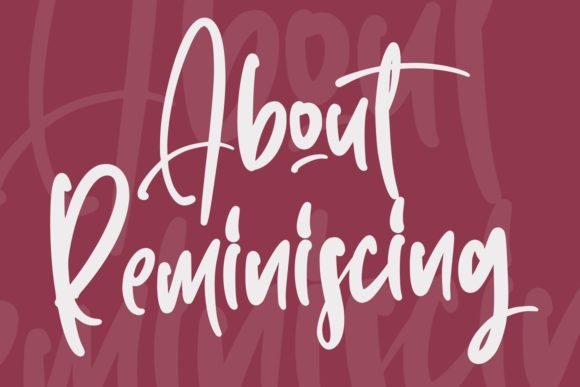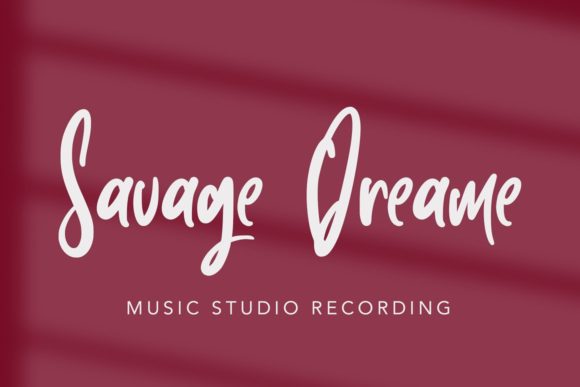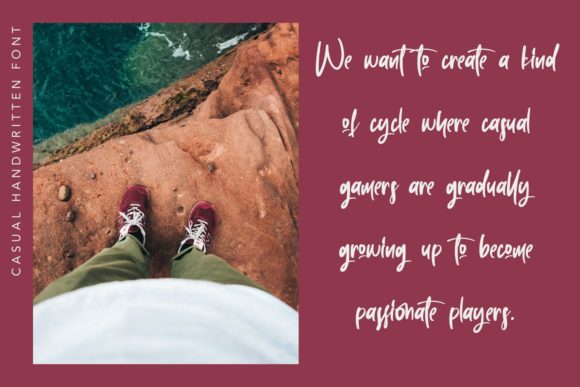
Introduction to Plottage Font
Have you ever stared at a blank canvas, struggling to bring your creative vision to life? You’ve spent hours brainstorming ideas, pouring over references, and agonizing over every detail. But then, like a ray of sunshine, the perfect font appears – and suddenly, your project comes alive. That’s exactly what happened when I discovered the Plottage Font.
With its bold, thick letters and smooth curves, the Plottage Font is the ultimate design resource for fashion branding and editorial designs. Its versatility and high quality make it an ideal addition to any creative project, whether you’re working on a magazine cover, a fashion campaign, or a personal branding project. And the best part? The Plottage Font is available for free download, complete with a transparent background, making it a valuable asset for designers looking to elevate their work.
Key Features of Plottage Font
- Includes 4 styles: Plottage Regular, Plottage Bold, Plottage Italic, and Plottage Bold Italic
- Designed to be highly versatile, suitable for a wide range of applications and designs
- Perfect for graphic designers, digital artists, and anyone in need of a unique and creative font
Honest Review: Plottage Font
I recently came across the Plottage Font and was excited to dive in and see what it had to offer. As a designer, I’m always on the lookout for high-quality fonts that can elevate my creative projects.
- High-quality design: The Plottage Font has a clean and modern aesthetic that’s perfect for a variety of creative projects.
- Transparent background: This allows for easy customization and flexibility when using the font in different design contexts.
- Wide range of applications: From logos and branding to print materials and digital designs, the Plottage Font is versatile and adaptable.
- Limited font styles: While the Plottage Font is available in several weights and styles, it’s not as extensive as some other font families on the market.
- Not suitable for all designs: The modern aesthetic of the font may not be the best fit for every creative project or design style.
Overall, I was impressed with the Plottage Font and think it’s a great addition to any designer’s toolkit. While it may not be perfect, its high quality and versatility make it a valuable design resource.
Getting the Most Out of Plottage Font
To get the most out of Plottage Font, use it in combination with other design resources, such as images and graphics. You can also experiment with different font sizes, colors, and styles to create unique and visually appealing designs.
Plottage Font is a versatile design resource that can be used in a variety of creative projects, including logos, graphics, presentations, and documents. It is especially useful for projects that require a high-quality, transparent background.